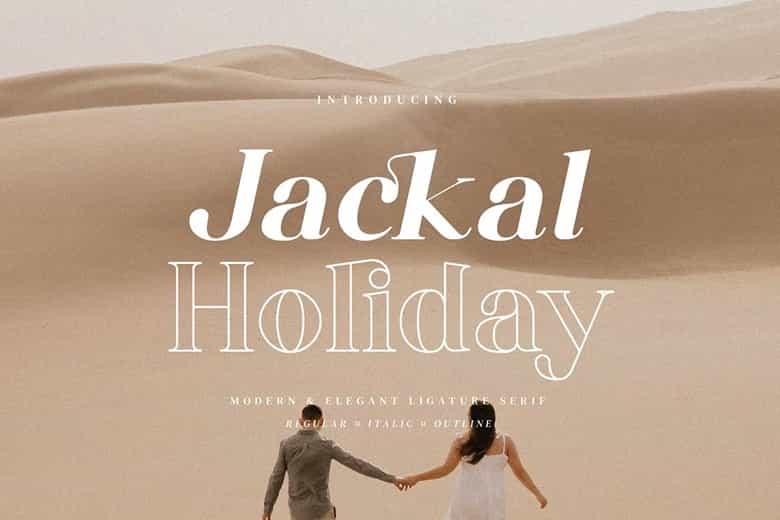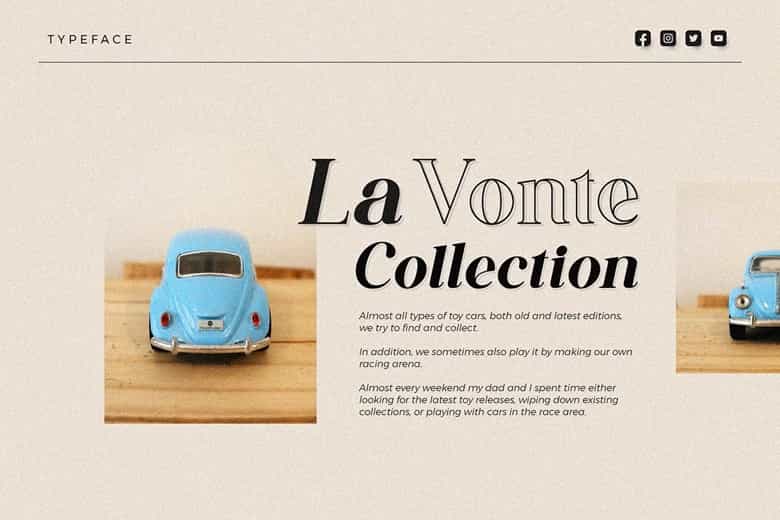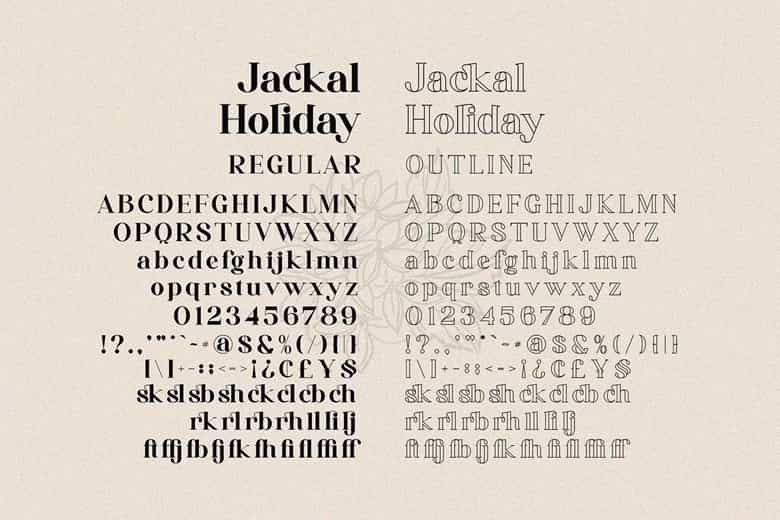
Jackal Holiday is a modern ligature serif font family assessed to be contemporary and innovative with inspiration from the minimalist logo. It is suitable to use to create templates and flyers designs, advertisements, branding techniques, logos and videos among others.